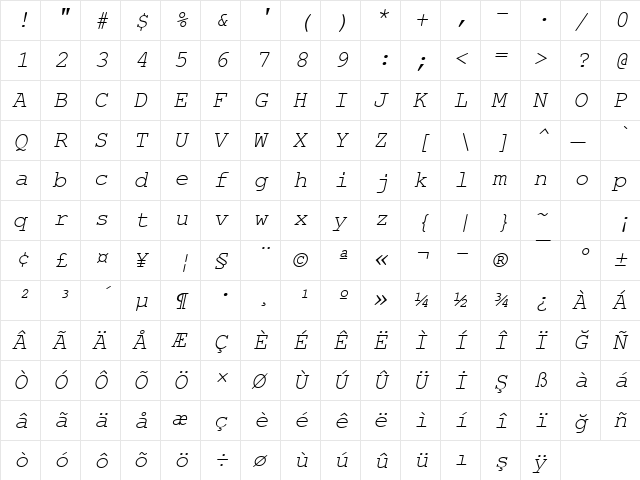
NimbusMonLTU Italic
Design Context for NimbusMonLTU Typeface
NimbusMonLTU takes a measured approach to typography — its balanced proportions and neutral character make it a reliable workhorse for both digital and print work. The slanted form adds forward momentum and visual energy.
Pro Tip: Try NimbusMonLTU for annotation and caption copy alongside an upright companion — the contrast in angle creates a dynamic but ordered typographic system.